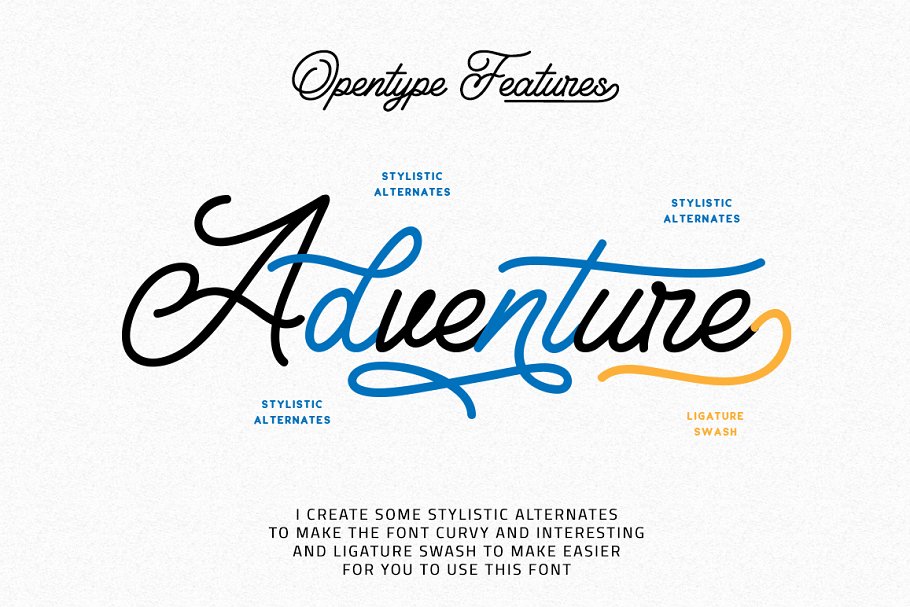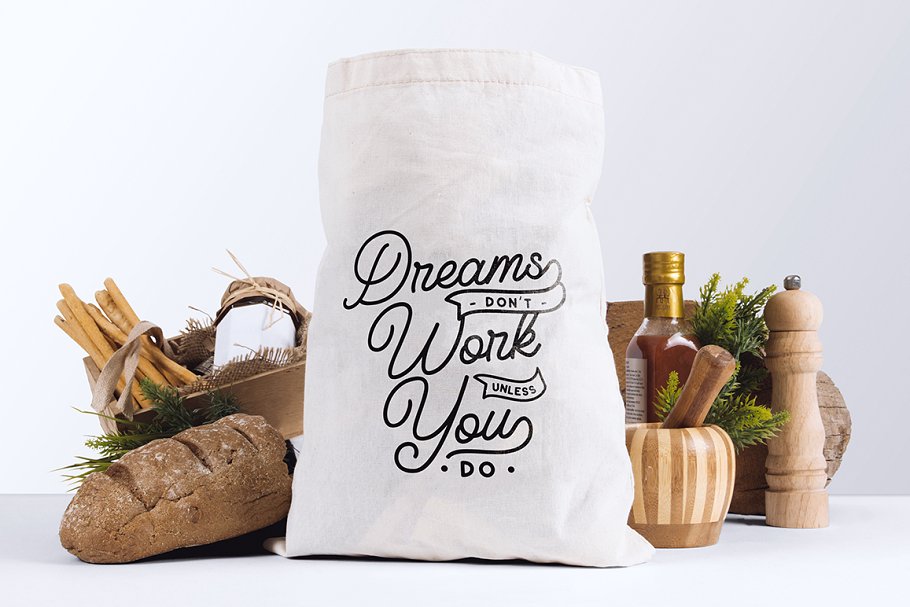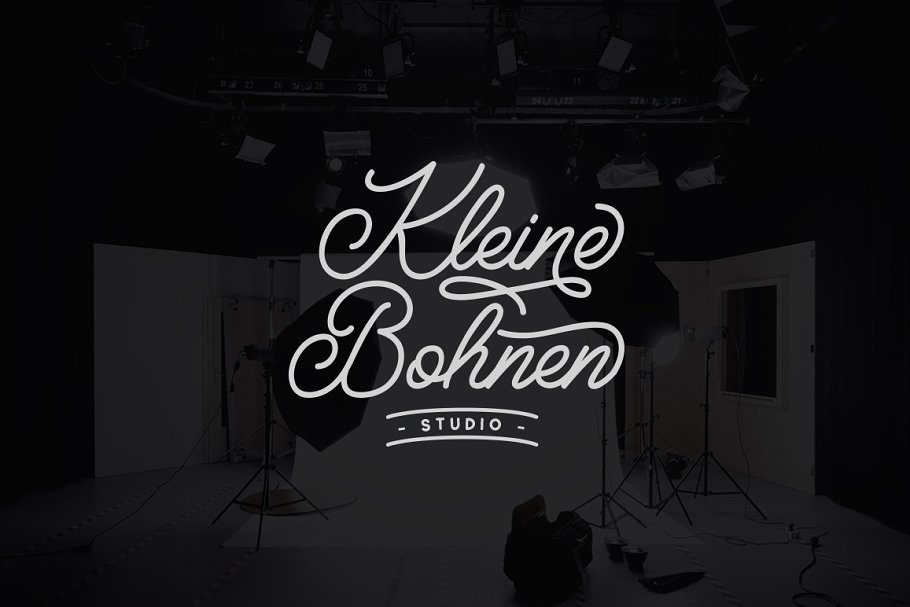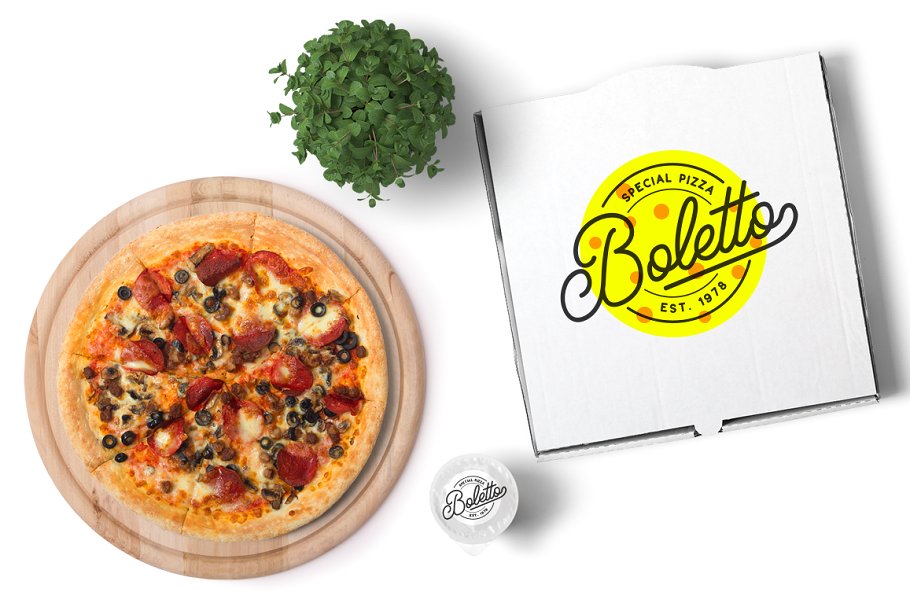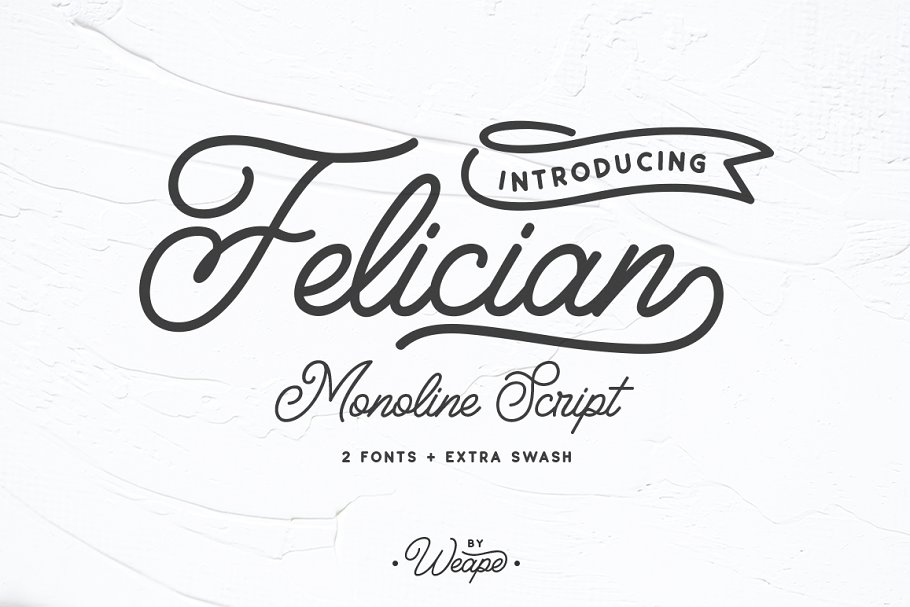
Felician Script Font
Designed to bring style elegance. Felician Font a feminine, sensual, glamorous, simple and very readable typeface. Felician designed and shared by Weape Design . Felician is a font with modern monoline style and very suitable for your daily use. You can use it for brandong, poster, logo, signature, t-shirt design, social media post and many more. Felician comes with several stylistics, ligatures, swashes and ribbon illustrations.